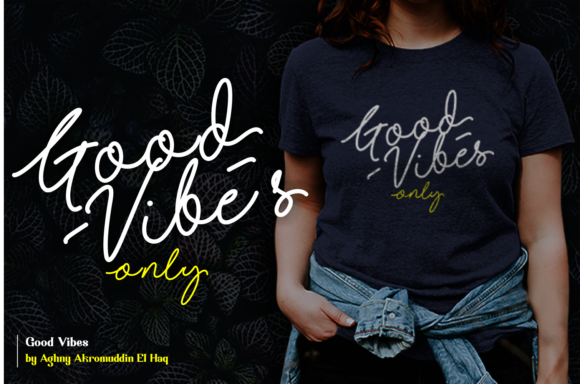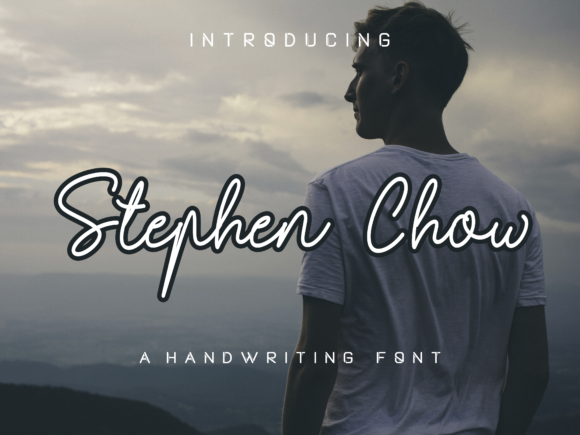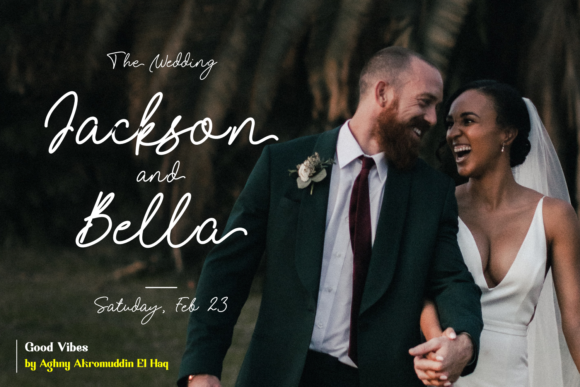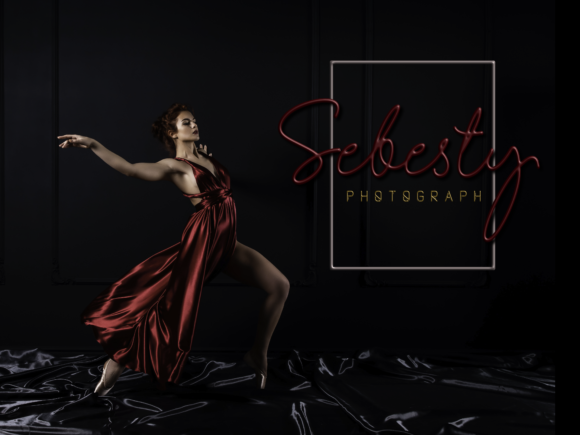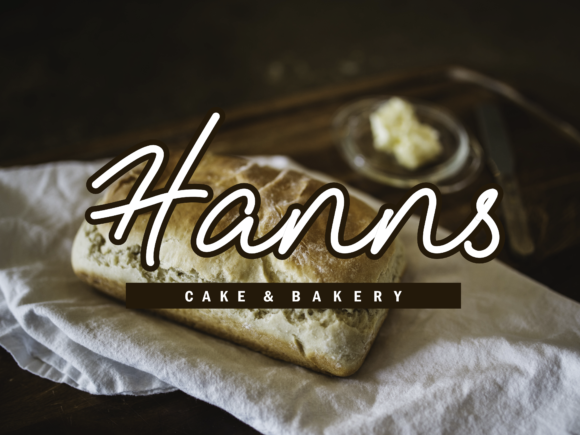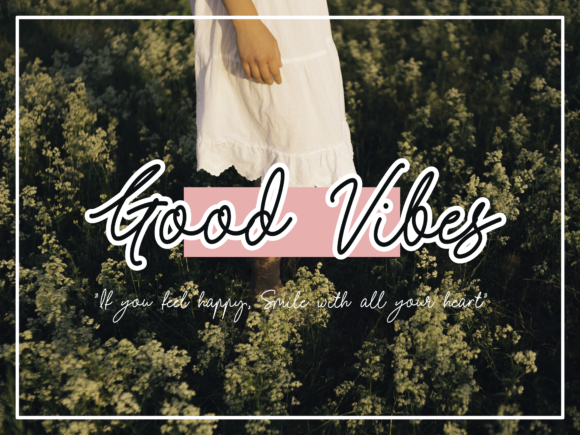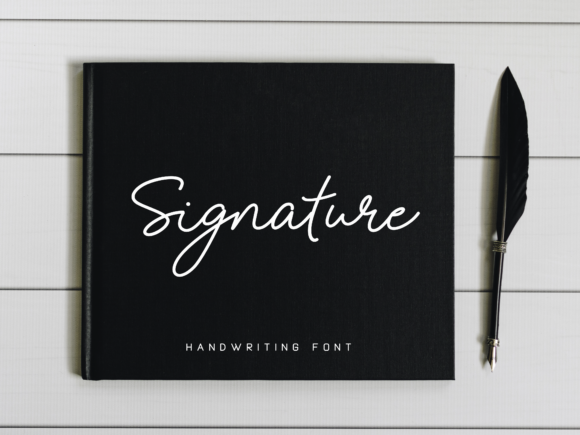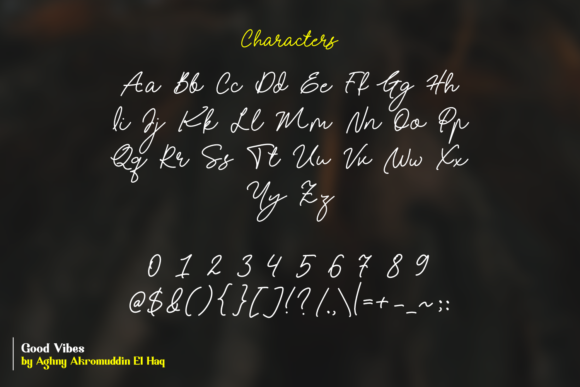
Good Vibes Font
About Good Vibes Font
Good Vibes is an elegant and flowing handwritten font. It is PUA encoded which means you can access all of the glyphs and swashes with ease! Fall for its ravishing style and use it to create gorgeous designs.